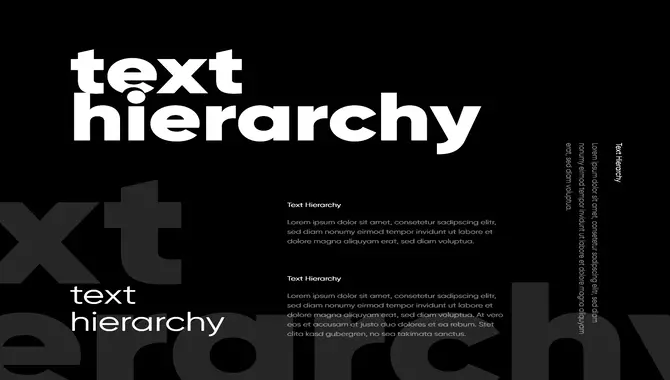
Web design is all about creating a visually stunning, easy-to-use website that engages your audience and drives your desired results.
Typography plays a crucial role in web design as it helps to communicate the message, set the tone, and guide users through the content. Mastering typography can be challenging, but it’s an essential skill for any web designer. We will cover everything you need about Master Font Tips for Web Design.
From what it is and why it’s important to best practices for web typography and common mistakes to avoid. We’ll discuss how to create a balanced text hierarchy, choose fonts for your website, size fonts appropriately, use colors intentionally, maintain proper line length and spacing, use consistent alignment techniques, create contrast, reduce text amount, and avoid faux bold and italics.
What Is Typography In Web Design?
Typography is an essential element in web design that involves the art and technique of selecting fonts, sizes, spacing, and colors to create a visual hierarchy that enhances the user experience. It plays a significant role in conveying the tone and message of your website while improving readability, accessibility, and brand recognition.
Typography should be consistent throughout the website and match the style and tone of the content to create an appealing visual hierarchy that guides the user’s attention. Good typography can help make written language legible and readable, ensuring that users have a seamless experience on your website.
Importance Of Mastering Typography In Web Design
When it comes to web design, mastering typography is essential. Typography refers to a website’s style, size, and arrangement of fonts. It can make or break the overall look and feel of the site and can significantly impact user experience.
Good typography can help guide users through a website, make important information stand out, and create a cohesive design. On the other hand, poor typography can be distracting, hard to read and give off an unprofessional vibe.
By mastering typography in web design, designers can create visually appealing websites that are easy to navigate and enhance the user’s experience.
Best Practices For Web Typography
Creating a visually appealing website through typography requires following best practices. Using readable fonts that are easy on the eyes and appropriate for your brand is crucial. Contrasting font sizes can create a visual hierarchy and guide users through the design while limiting the number of fonts used and maintains consistency.
Proper spacing between letters, words, and lines improves readability, and accessibility can be enhanced using alt text and high-contrast colors. By mastering web typography, designers can create memorable user experiences that effectively communicate their message to the audience.
Creating A Balanced Text Hierarchy
Effective web design involves creating a balanced text hierarchy that guides readers through the content and emphasizes important information. Achieving a balanced text hierarchy requires designers to strategically use different font sizes, weights, and colors to create a visual hierarchy that is easy to follow.
Consistency in font choices throughout the website also helps establish a strong brand identity and improves readability on various devices. By thoughtfully considering these elements, designers can create beautiful and effective websites that communicate their message to their audience.
Choosing Fonts For Your Website
Choosing the right fonts for your website is crucial to web design. It is important to select fonts that are easy to read, appropriate for your brand, and visually appealing. Sans-serif fonts are often preferred for digital displays as they are easier on the eyes and more legible in smaller sizes.
However, when used appropriately, serif fonts can add elegance and sophistication to a website. When selecting multiple fonts for your website, limit the number of variations and keep things consistent.
By selecting the right fonts, designers can create websites that look good and communicate their message effectively to their audience.
Limit The Number Of Fonts Used
When choosing fonts for your website, less is often more. Limiting the number of fonts used creates a clean and cohesive visual hierarchy that guides the reader through the content. Using too many fonts can create a cluttered and confusing design that distracts from the message you are trying to convey.
Choose two or three complementary fonts and use them consistently throughout your website to maintain consistency. Experiment with different font weights, styles, and sizes to add interest and emphasis to your typography while ensuring optimal readability on various devices. Don’t forget to consider accessibility when selecting your fonts to ensure everyone can enjoy your content.
Sizing Fonts Appropriately
Sizing fonts appropriately is crucial for creating a visually appealing and easy-to-read website. When determining the ideal font size for body text, it’s important to consider the intended audience and purpose of the website.
The recommended range for body text is typically between 16-20 pixels, but it can vary based on the font style, weight, line spacing, and length. The font size should be larger for headings to establish a clear information hierarchy.
Testing various sizes and styles across different devices and screen sizes can help find the optimal balance between aesthetics and usability.
Using Colors Intentionally
Colors are crucial in web typography, as they can significantly impact the overall design and user experience. However, it’s important to use colors intentionally and thoughtfully. Using too many colors can make the website look cluttered and confusing while using too few can make it appear bland and uninteresting.
To strike the right balance, it’s essential to select colors that complement each other and fit the website’s overall theme.
Proper Line Length And Spacing
Proper line length and spacing are critical factors in creating a well-designed website. The ideal line length falls between 45-75 characters per line, while line spacing should be at least 1.5 times the font size for optimal readability.
White space can also improve legibility, but too much can make the text look disconnected. Proper spacing and consistent alignment techniques can help create a visual hierarchy that guides the reader’s eye through the content. Consistency in line length and spacing throughout a website enhances its overall design and user experience.
Consistent Alignment Techniques
Consistent alignment techniques are essential for creating a visually pleasing and professional website. Aligning text to a grid or baseline can ensure that all elements on the page are evenly spaced and aligned. You can create a cohesive look across your website by using consistent font sizes, line spacing, and margins.
Moreover, keeping your site clutter-free helps avoid giving it an unprofessional look. Ensuring proper alignment can be time-consuming but is vital in creating a clean design that improves user experience. Remember to consider readability at all times, especially when dealing with smaller font sizes or longer blocks of text.
Creating Contrast
Creating contrast is a critical element of web typography, as it enhances the readability of your website’s content. High-contrast color schemes can make text stand out and become easier to read while adding visual appeal to your design.
It is important to be consistent with font choices and sizes throughout your website for a clean and professional look. Avoid using light-colored text on a light or dark-colored text on a dark background, as it can strain the eyes. Instead, sparingly use bold or italic fonts to create visual contrast and emphasize important information.
Reducing Text Amount
When designing a website, it’s important to remember that less can often be more. By reducing the amount of text on your webpage, you can make your content easier for users to read and understand. Breaking long paragraphs into shorter ones can make the content more visually appealing and easier to scan.
Additionally, headlines, subheadings, bullet points, and numbered lists can help organize information and make it more accessible. Choosing easily readable fonts on different devices and screen sizes is also crucial for a positive user experience. Ultimately, balancing design with readability is key in web typography.
Avoiding Faux Bold And Italics
Choosing the right font for your website is essential, but avoiding faux bold and italics is equally important. Faux styles are computer-generated and can appear distorted on different screens, leading to an inconsistent look across devices. Instead, opt for real bold or italic fonts that maintain shape and style on any device.
It’s also vital to select a legible font size and ensure a proper contrast between the text and background colors for easy readability. By focusing on these details, you can create a professional-looking website with typography that enhances user experience.
Common Web Typography Mistakes To Avoid
In web design, there are several common typography mistakes to avoid. One mistake is using too many fonts on a single webpage. This can be overwhelming and distracting for users. Sticking two or three complementary fonts is best to maintain consistency and visual appeal.
Another mistake is using fonts that are too small or difficult to read, especially on mobile devices. Additionally, avoid using caps lock for entire sentences or paragraphs, as it can make the text harder to read.
Finally, be mindful of proper line spacing and formatting to make your content more accessible and user-friendly. Keeping these tips in mind will help you.
When it comes to web design, typography plays a fundamental role in creating an engaging user experience that aligns with the brand’s values and goals. By considering best practices such as prioritizing readability and limiting the number of font families used, designers can create a professional-looking website that is easy to navigate.
Typography is a critical element of web design that can make or break the user experience. By mastering typography, you can create a website that is visually appealing, easy to read, and engaging for visitors.
To achieve this goal, you must follow the best practices mentioned, such as creating a balanced text hierarchy, choosing fonts wisely, sizing them appropriately, using colors intentionally, etc. Choosing the right font is critical to web design.
By following these Master Font Tips for Web Design, you can ensure that your website is aesthetically pleasing and functional. Remember to consider factors like legibility, readability, and contrast when selecting fonts for your website.
1.What Is A Good Design Rule For Fonts On A Website?
Ans: A good design rule for fonts on a website is to use a maximum of three font families. It’s important to ensure that the font is legible and easy to read across all devices and that font sizes are large enough for easy reading but not too big to become overwhelming.
Consistency in the font used throughout the website is crucial for improving user experience. Following these guidelines, you can create a visually appealing website with clear, readable text.
2.Which Font Type Is Better For The Web?
Ans: Sans-serif fonts are generally considered better for web design, with popular options including Arial, Helvetica, and Verdana. While serif fonts may be suitable for headings or limited use cases, they may not be as legible on screens. When choosing a font for web design, it is important to prioritize readability and accessibility.
3.How Can Typography Affect The Overall Look And Feel Of A Website?
Ans: Typography can significantly impact the overall look and feel of a website. It can set the tone and mood, improve readability, and guide the user’s eye through the content. Choosing the right font can also enhance the visual hierarchy of a site while impacting brand recognition and conveying professionalism.
Therefore, it is essential to consider typography carefully when designing a website to ensure that it aligns with the brand’s values and goals while creating an engaging user experience.
4.What Are Some Best Practices For Choosing Fonts For Web Design?
Ans: Some best practices for choosing fonts for web design include:
- Consider the brand’s personality and values
- Prioritize readability and legibility across all devices
- Limit the number of font families used to a maximum of three
- Choose sans-serif fonts over serif fonts for better legibility on screens
- Use font sizes that are easy to read but not too overwhelming
5.Are There Any Accessibility Considerations When It Comes To Web Typography?
Ans: Yes, accessibility is a crucial consideration when it comes to web typography. To ensure that all users can easily read your website, it’s important to use fonts that are easy to read and have high contrast with the background.
Avoid using small font sizes and decorative fonts that may be difficult for some users to read. Additionally, ensure that your website is compatible with screen readers and other assistive technologies that can help users with visual impairments access your content.